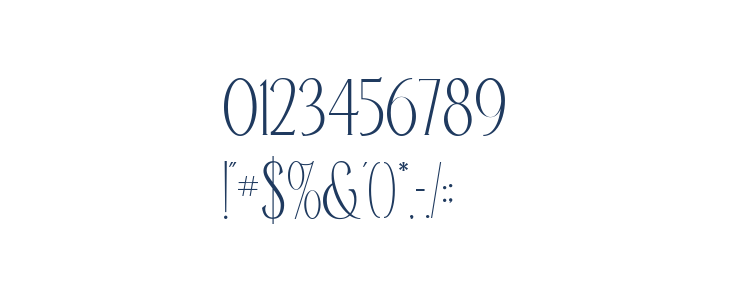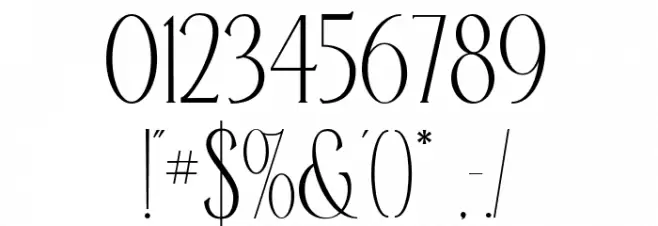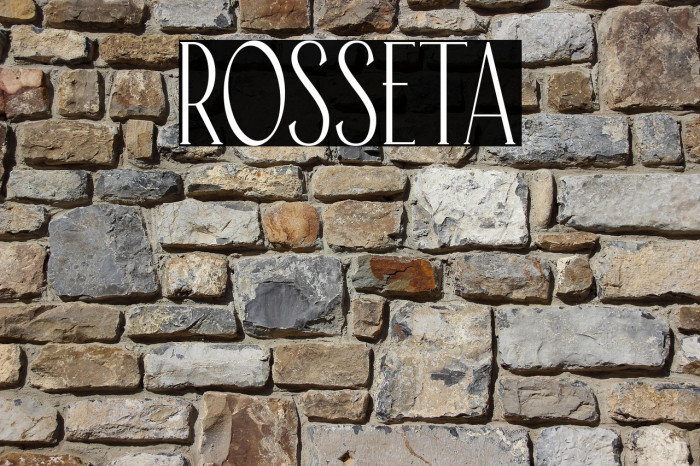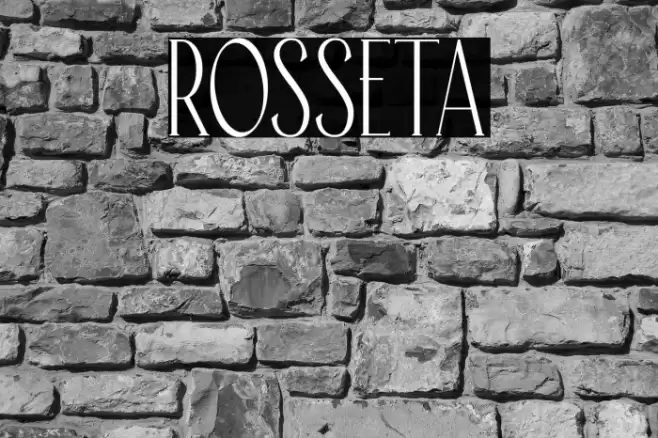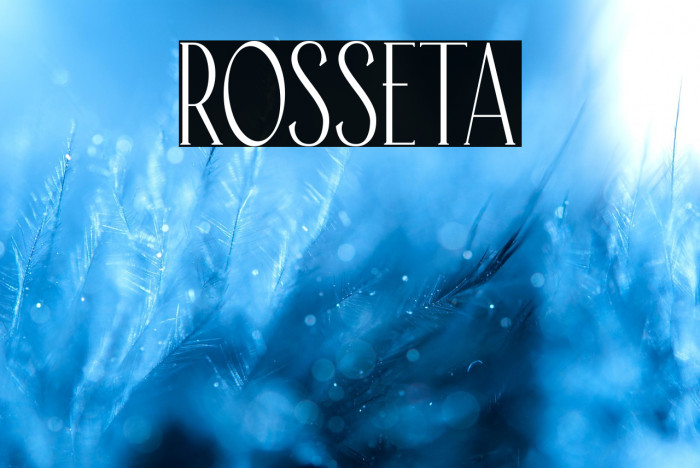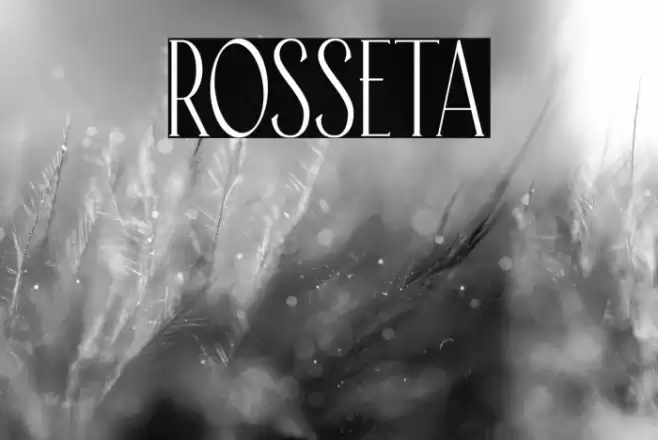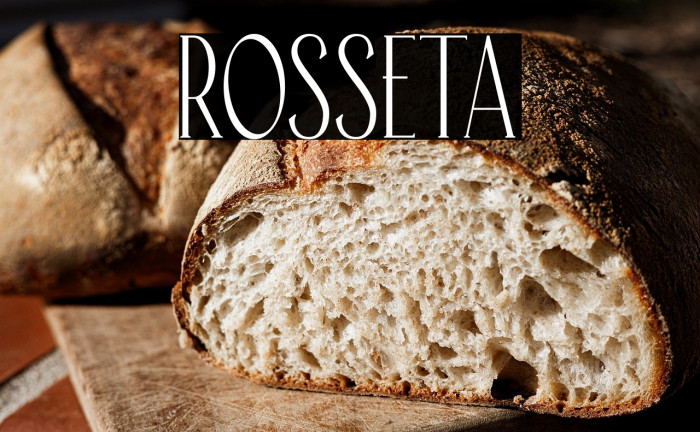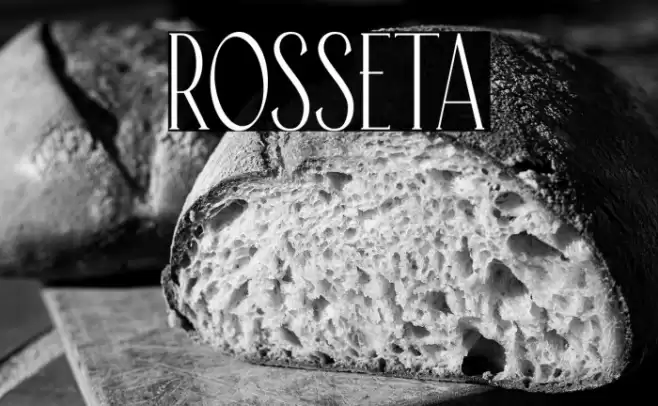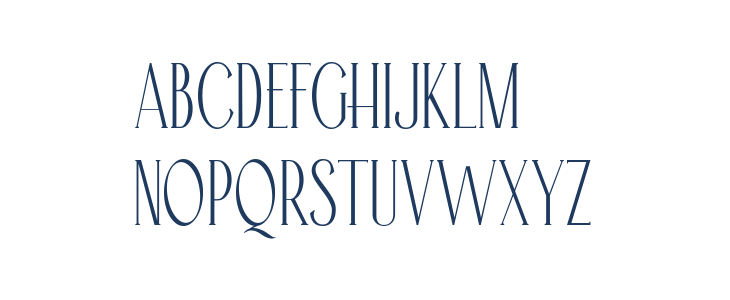
Rosseta Font
Rosseta Description
This font features an elegant and sophisticated design with tall, slender characters that exude a sense of refinement. The uppercase letters are particularly elongated, giving a sense of grandeur and formality. The strokes are thin with a high contrast between thick and thin lines, adding to the font's graceful appearance. The numerals and special characters maintain the same elegant style, ensuring consistency across all elements. This font is perfect for projects that require a touch of class and sophistication.
| Proposed Projects | Ideal for luxury branding, wedding invitations, high-end fashion magazines, and elegant event posters. |